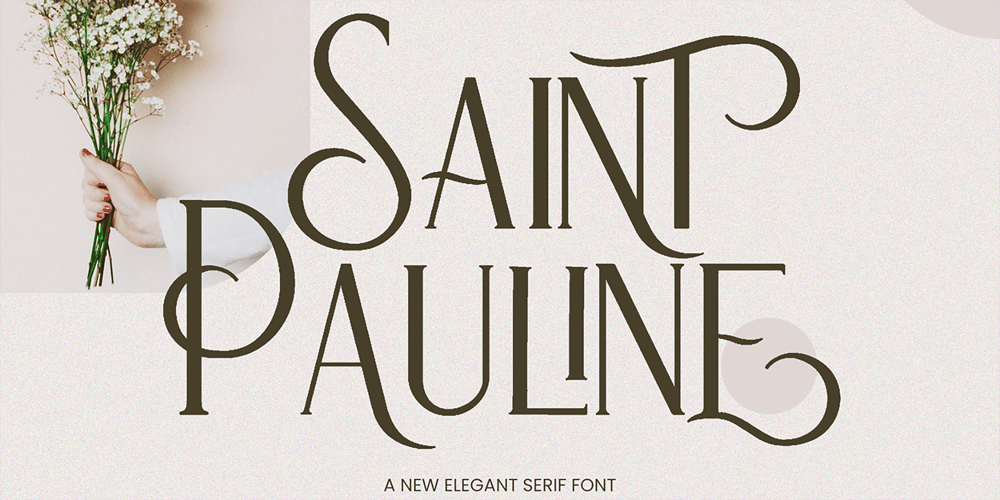
Saint Pauline
Saint Pauline font
Saint Pauline Font Family was designed by Tezar Tantular and published by Keristyper Studio. Saint Pauline contains 1 styles and family package options. Saint Pauline is a modern minimalist serif font. Elegant Vintage aesthetic design inspired by the Art deco era. This font is good for logo design, Social media, Movie Titles, Books Titles, short text even long text letters, and good for your secondary text font with sans or serif.Featured: Standard Uppercase & Lowercase Numeral & Punctuation Multilingual : ä ö ü Ä Ö Ü ß ¿ ¡ Alternate & Ligature PUA encoded We recommend programs that support the OpenType feature and the Glyphs panel such as Adobe applications or Corel Draw. so you can use all the variations of the glyphs. Hope you enjoy our fonts!